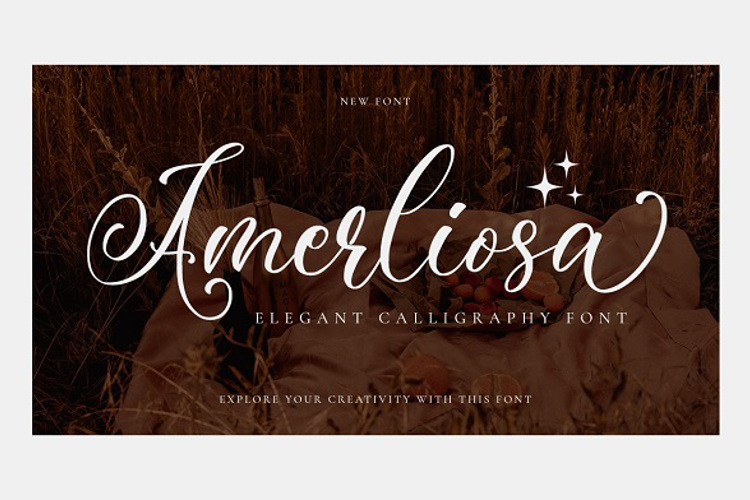
Amerliosa Font
Amerliosa is a lovely script font featuring charming, playful characters that seem to dance along the baseline. Add this font to your most creative ideas, and notice how it makes them stand out!